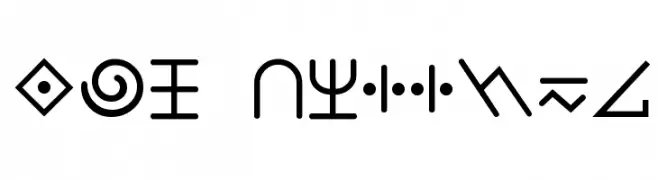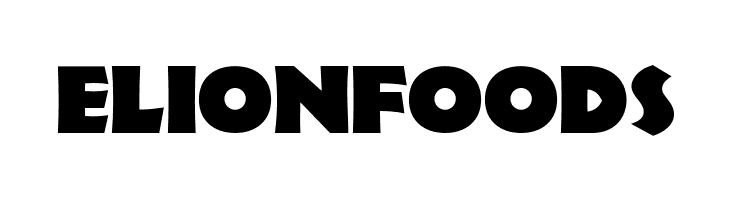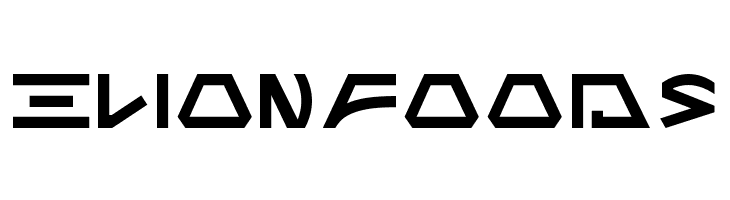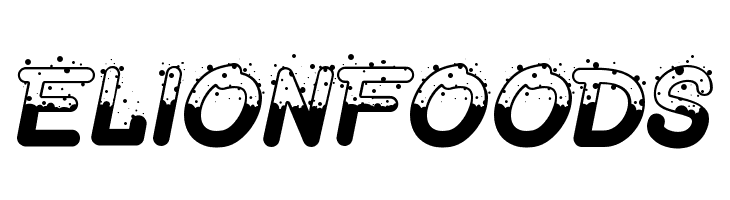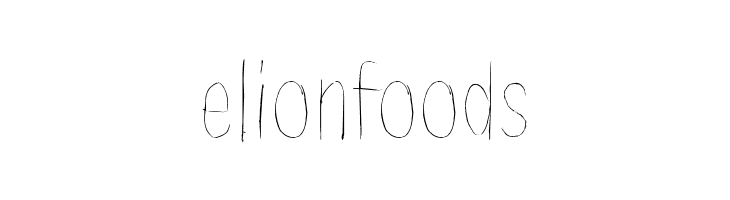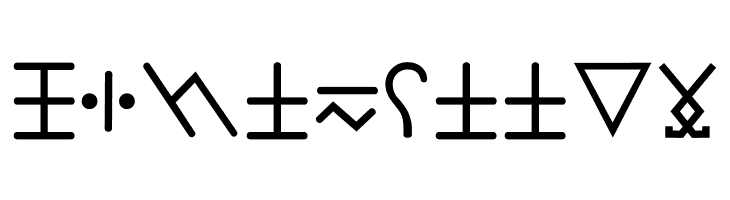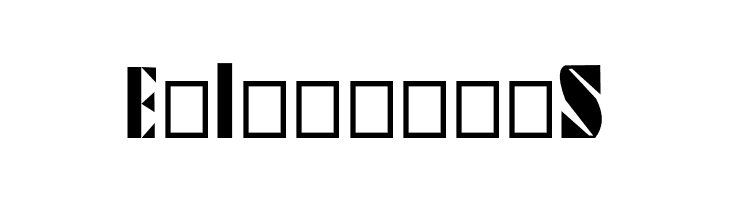
A bold, dynamic font with angular strokes and playful shapes, perfect for adventurous themes.
A bold, geometric font with angular shapes and a futuristic style.
A bold, playful font with a snow-like texture, perfect for festive designs.
A bold, playful font with rounded edges and a modern, casual style.
A hand-drawn, sketch-like font with irregular edges and varying stroke thickness.
A decorative and abstract font with geometric and symbolic characters.
Medical-themed pictogram font with bold, clear healthcare icons.